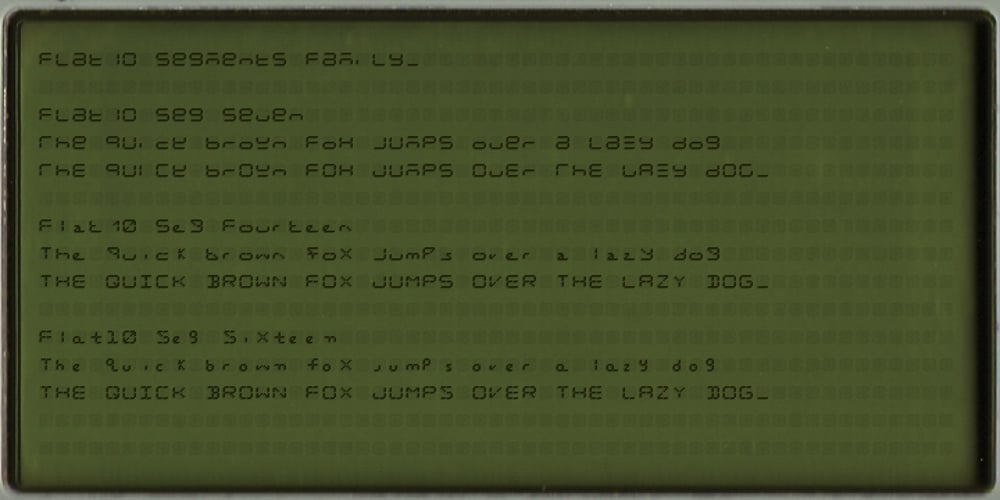
Flat10 Segments
Flat10 Segments font
Flat10 Segments Font Family was designed by Ryoichi Tsunekawa and published by Dharma Type. Flat10 Segments contains 3 styles and family package options. This 8-bit pixel font is designed with respect for 80s game designers and the pixel font pioneers in middle 90s. Use at size 10 pixels or multiples of 10 with anti-alias off is recommended. List of our Pixel Font Project. ·Flat10 Antique ·Flat10 Artdeco ·Flat10 Arts&Crafts ·Flat10 fraktur ·Flat10 Holy ·Flat10 Holly ·Flat10 Segments ·Flat10 Stencil ·Flat20 Gothic ·Flat20 Headline ·Flat20 Hippies ·Flat20 Streamer ·Behrensmeyer Vigesimals ·Civilite Vigesimals